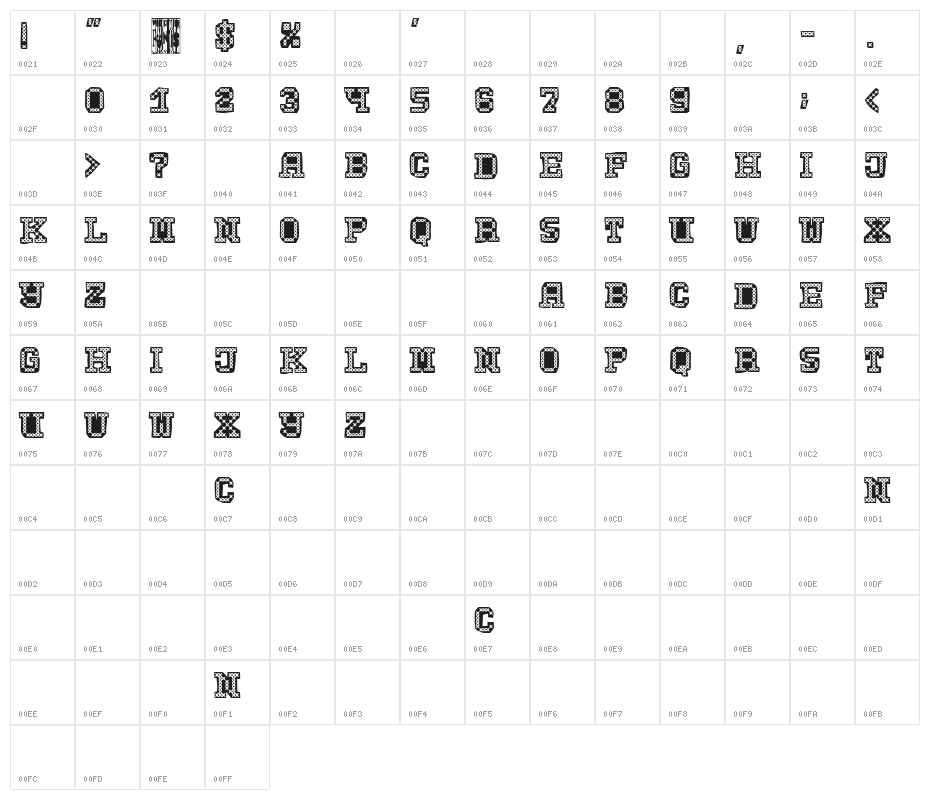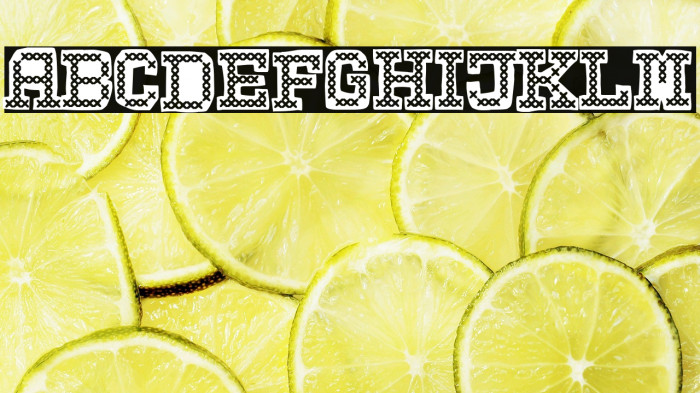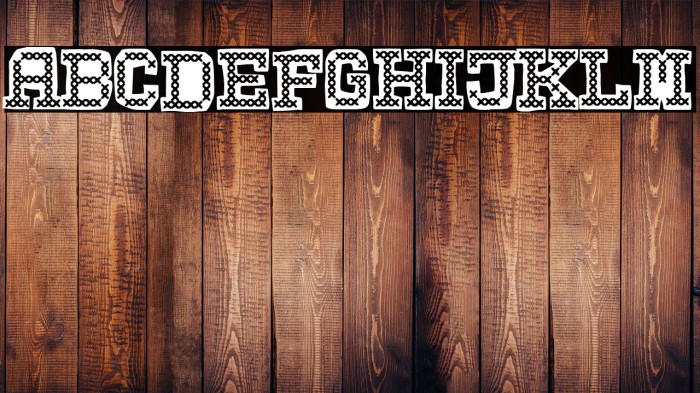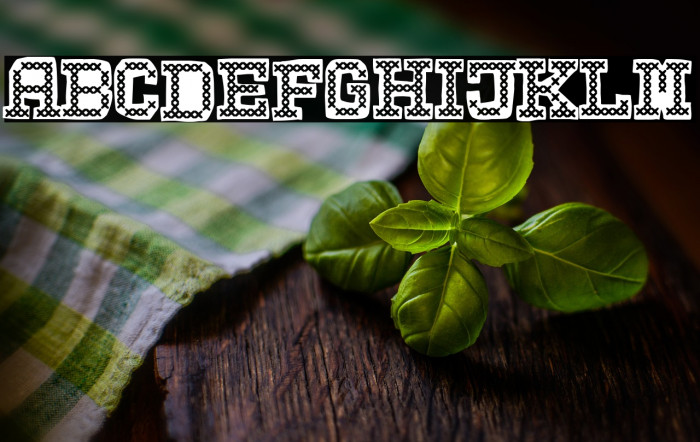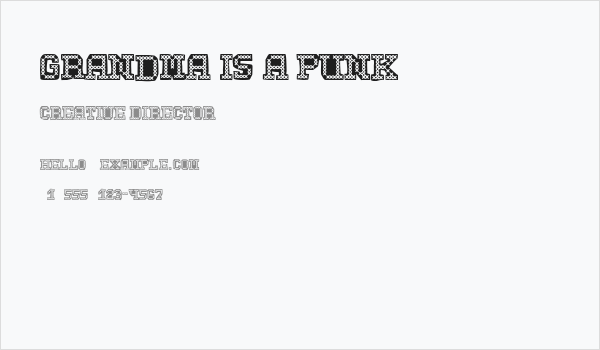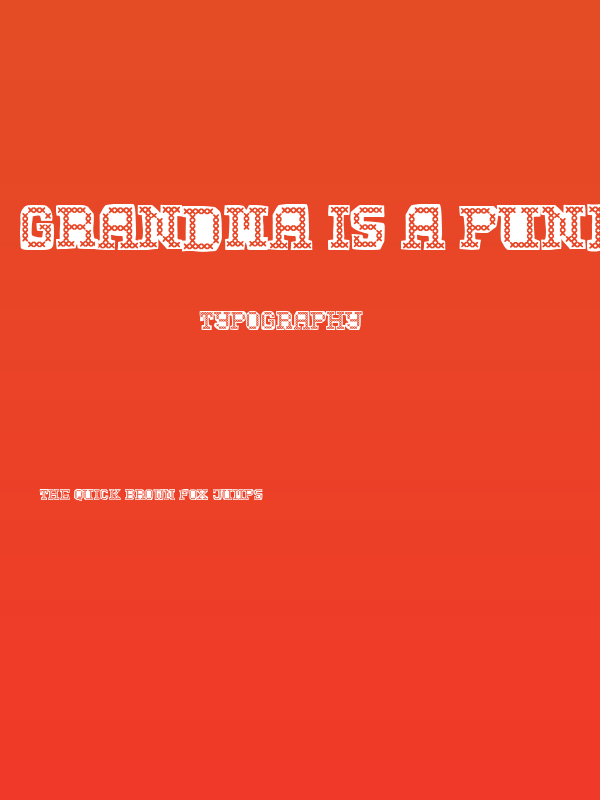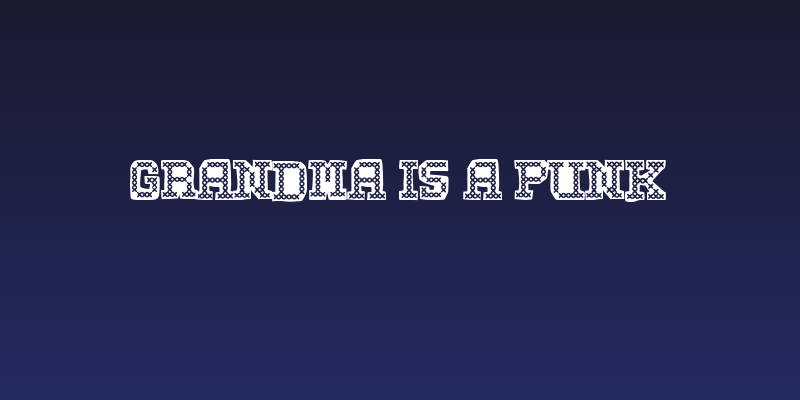
Grandma is a Punk Font
Grandma is a Punk Description
This font features a bold, decorative style with a unique pattern of crosses filling each character. The letters are blocky and robust, with a playful yet edgy appearance. The design is reminiscent of punk aesthetics, combining a sense of rebellion with a touch of nostalgia. Each character is outlined, enhancing its visibility and impact. The font includes both uppercase and lowercase letters, numbers, and a selection of special characters, all maintaining the consistent patterned theme. Its boldness and distinctiveness make it suitable for eye-catching designs.
| Proposed Projects | Ideal for music album covers, event posters, t-shirt designs, and any project seeking a bold, rebellious look. |